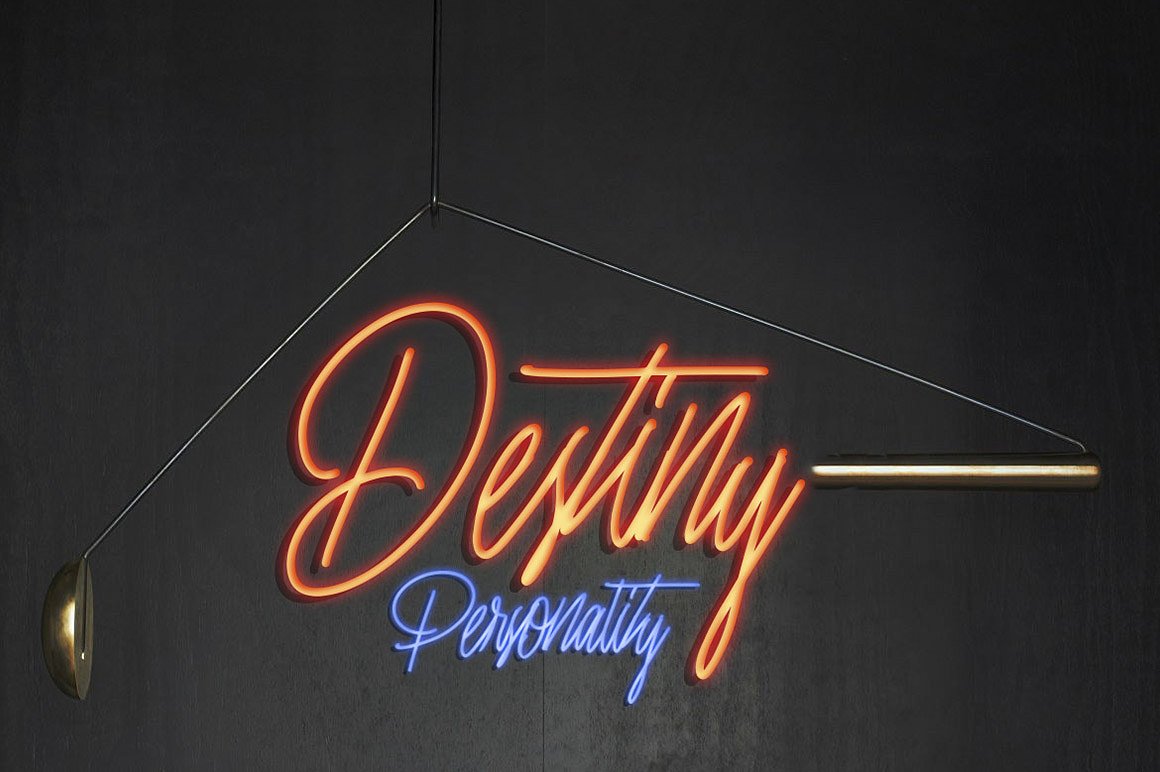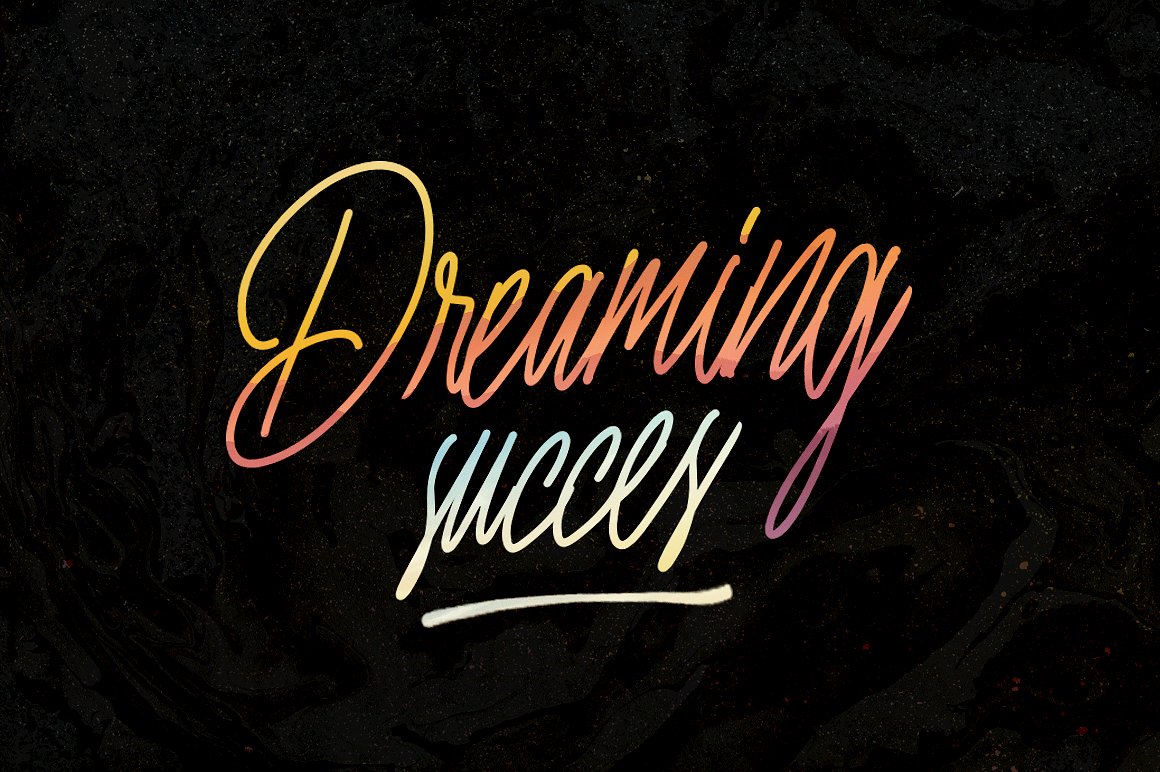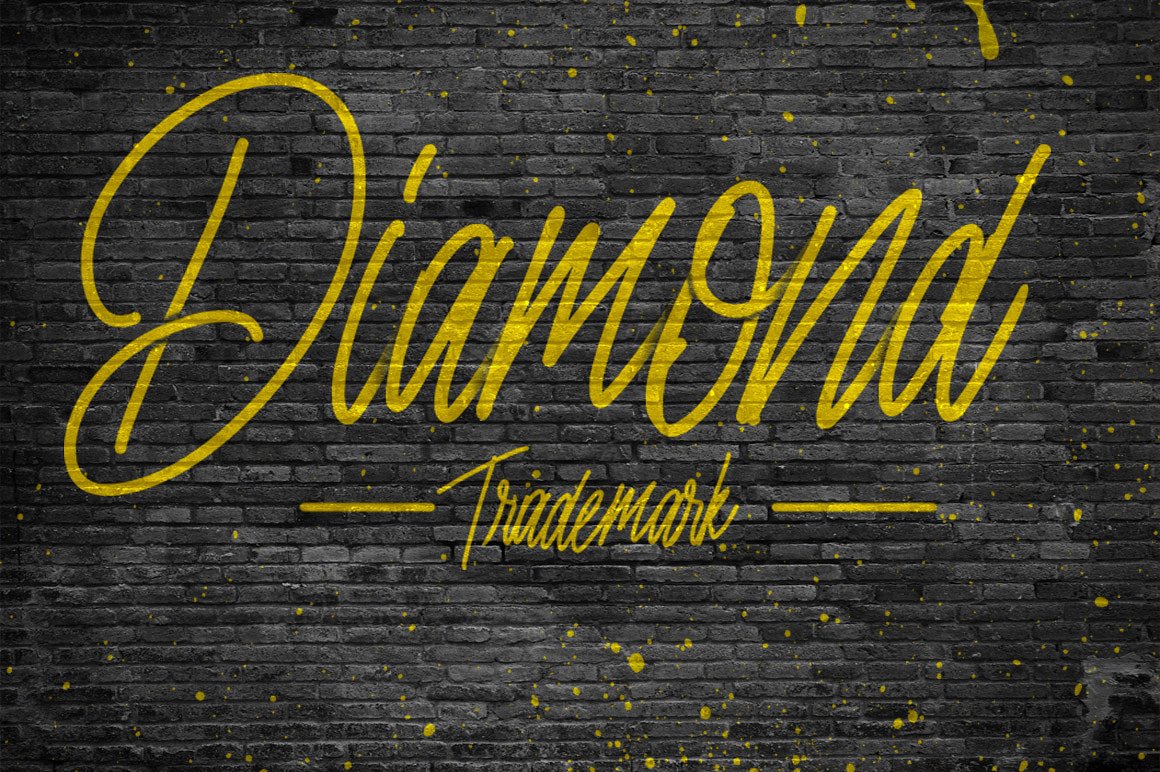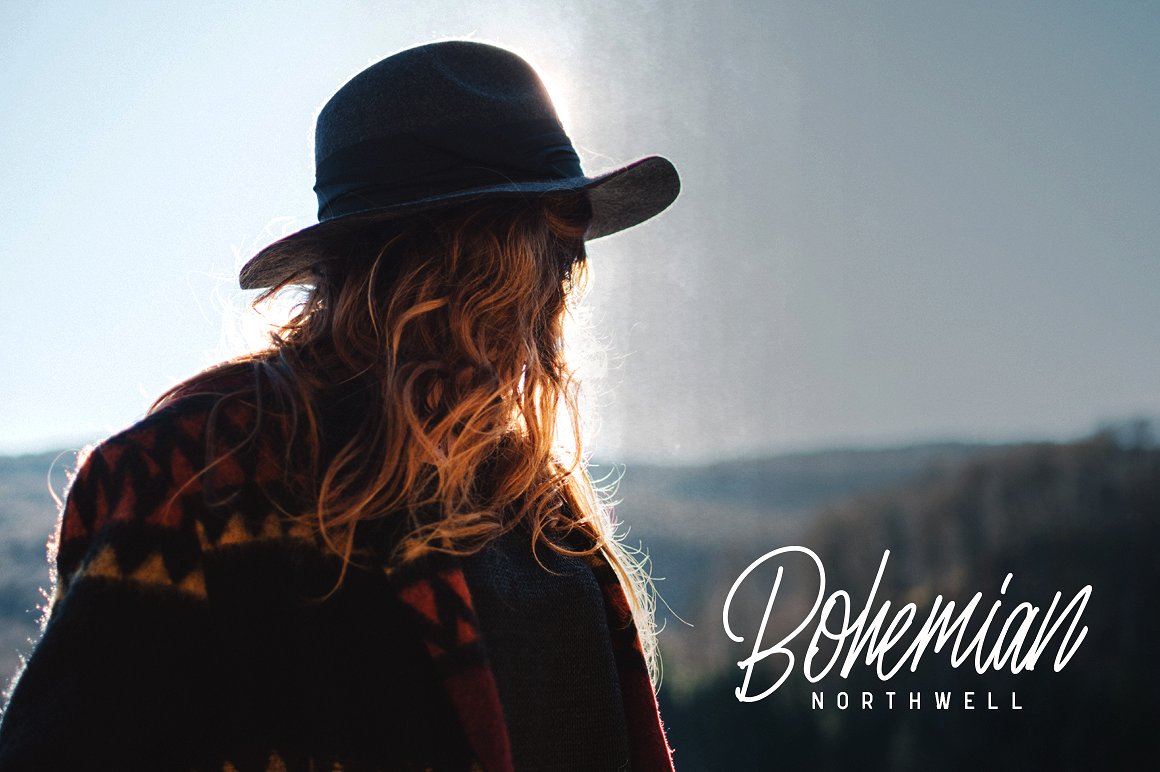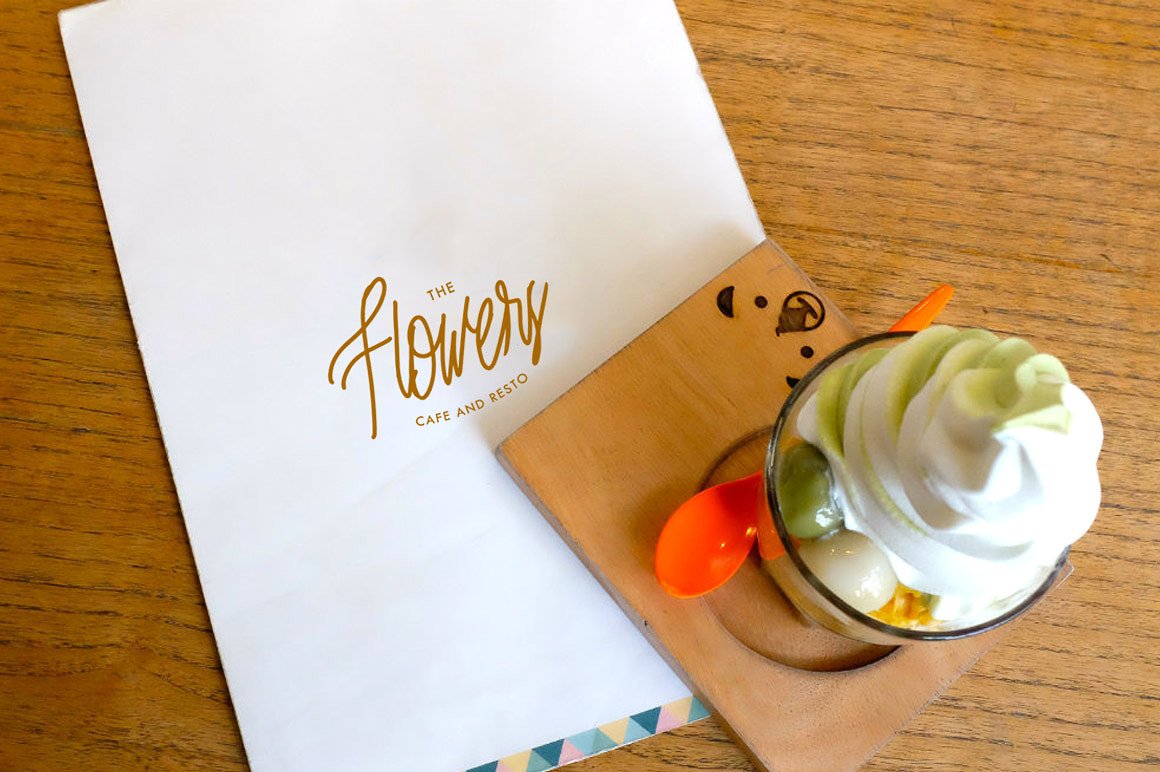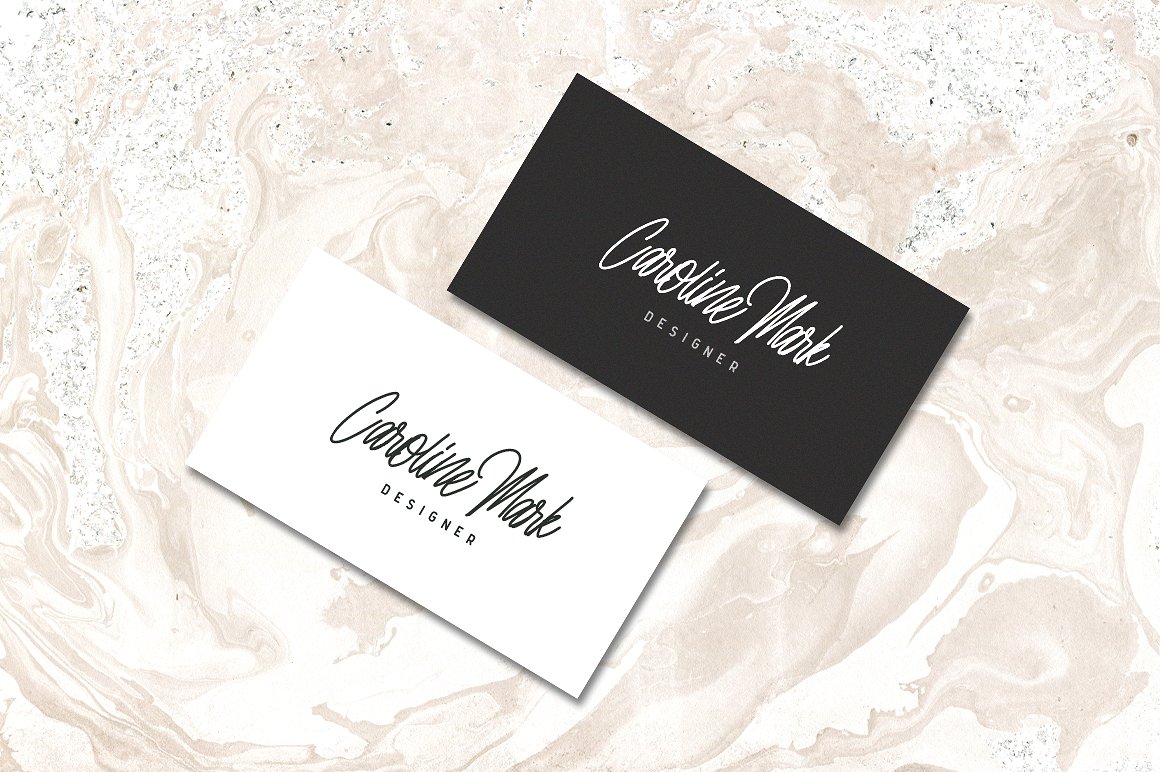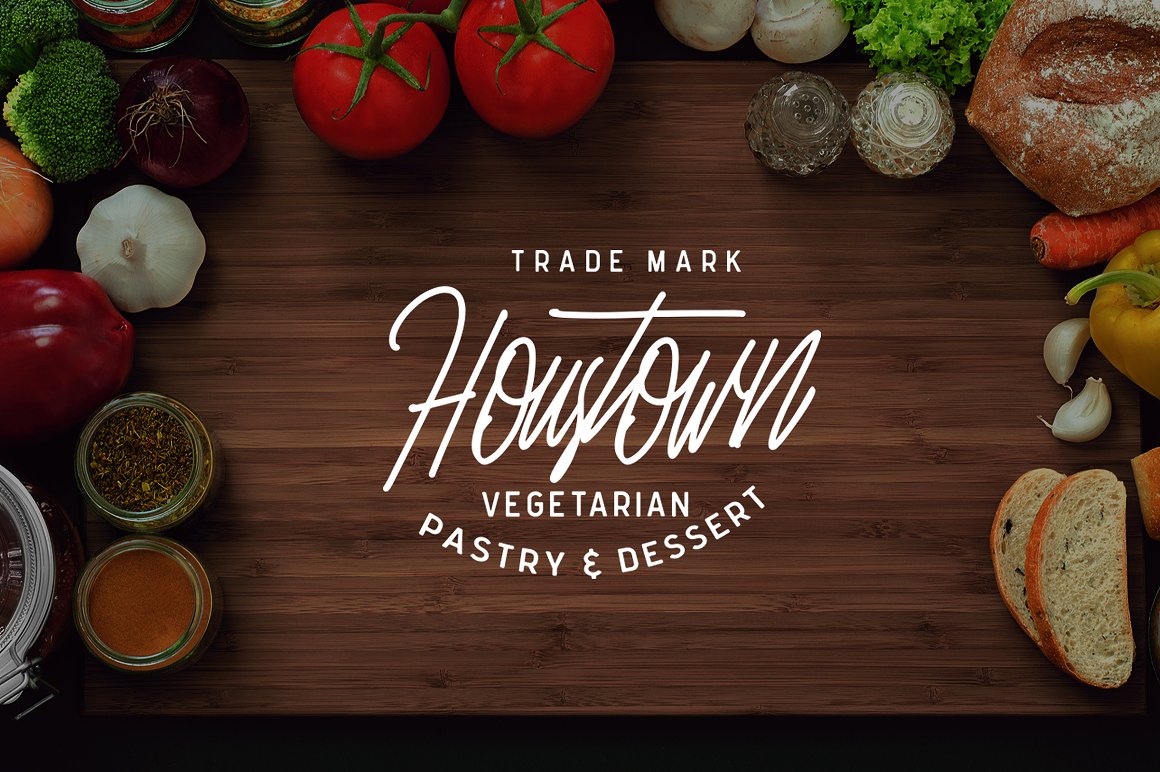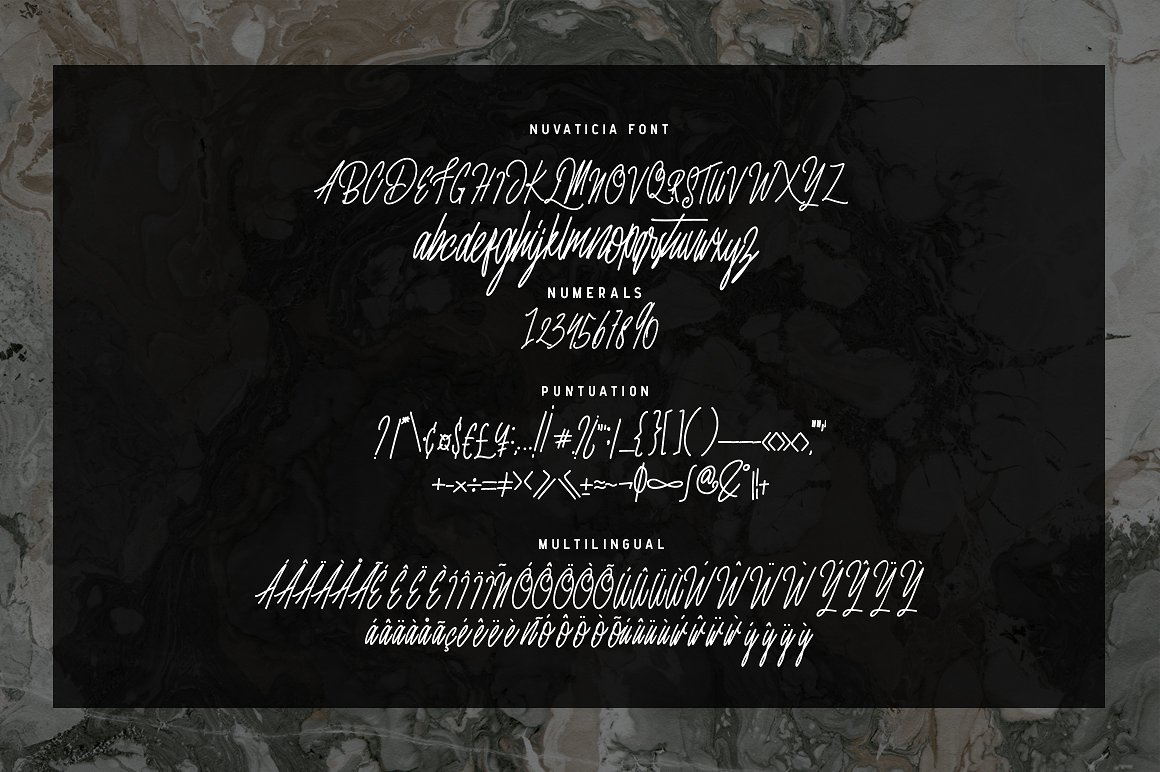
Nuvanticia Font
About Nuvanticia Font
Nuvanticia is a monoline script that has a irregular baseline, which gives it an incredible playful flow.
It’s the perfect font for signature design. It’s classy & elegant, but leaves a strong impression.